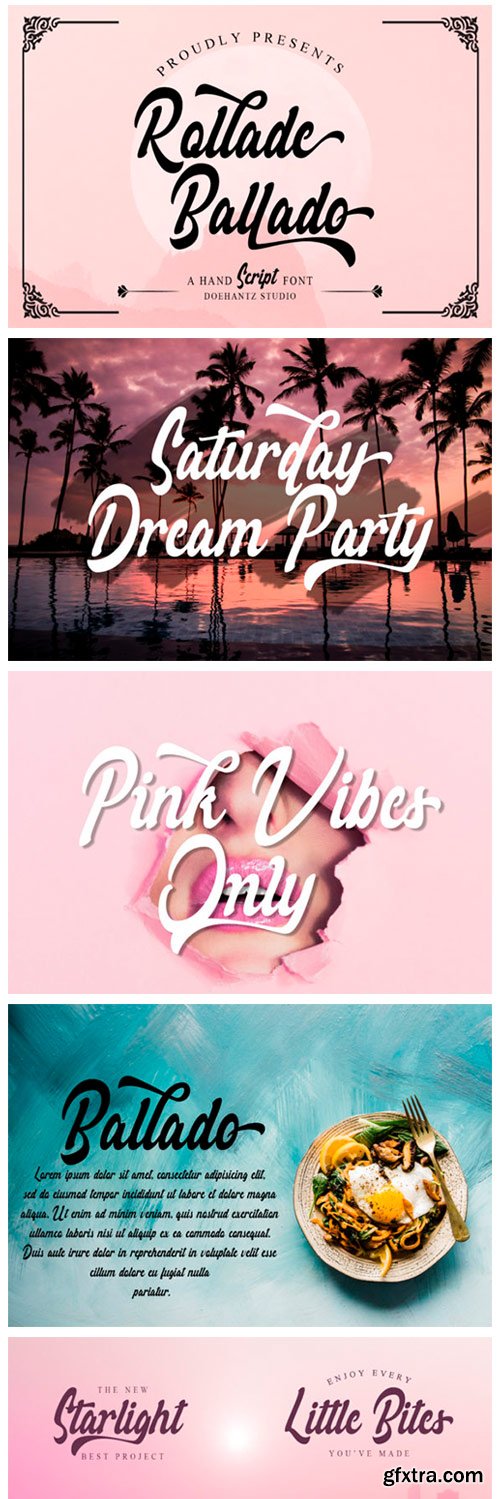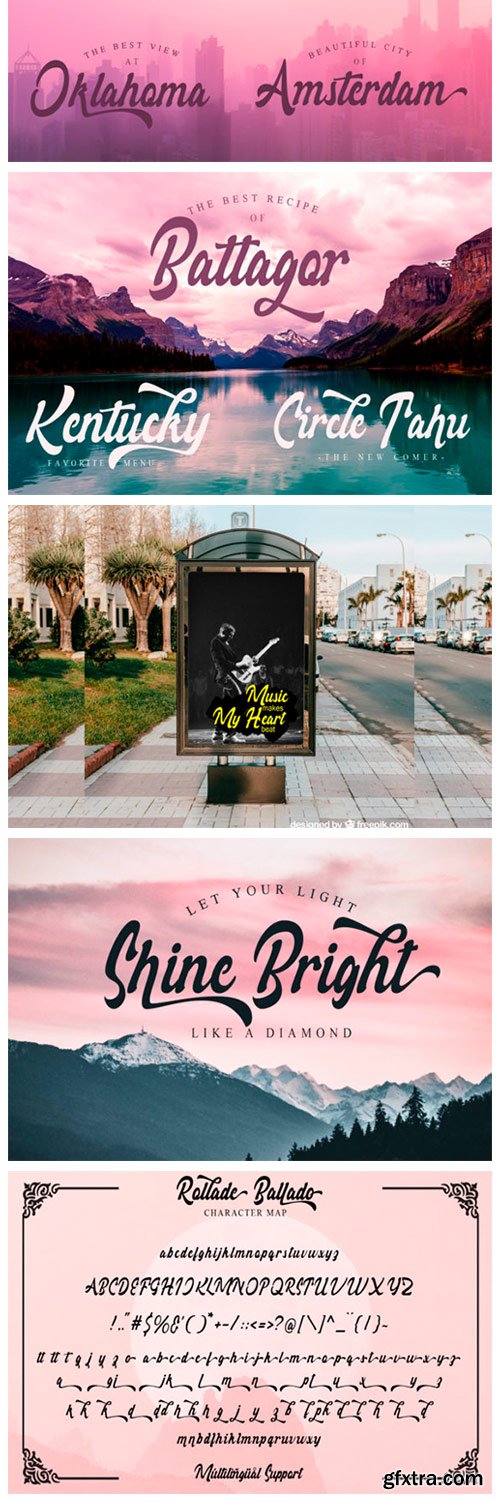
Rollade Ballado Font
Rollade Ballado is a hand script font. It features gorgeous swashes and ligatures that make this script incredibly versatile. Whether you’re looking for fonts for Instagram or calligraphy scripts for DIY projects, Rollade Ballado will turn any creative idea into a true piece of art!